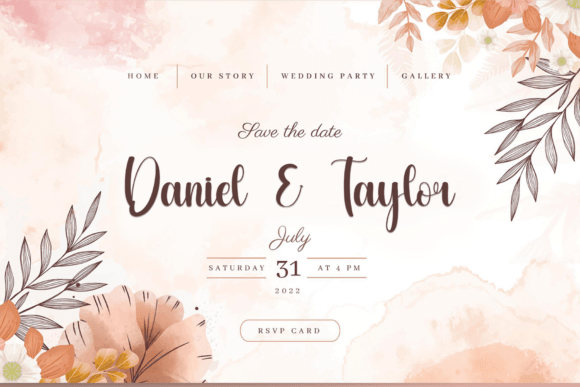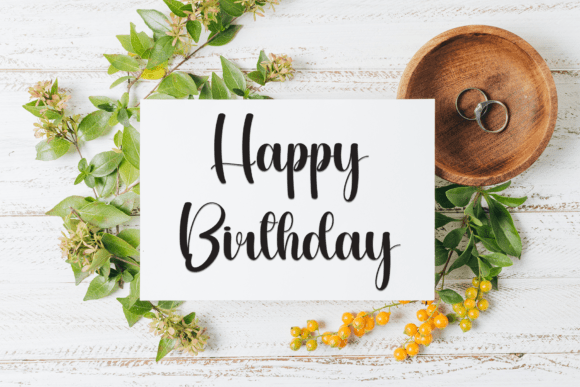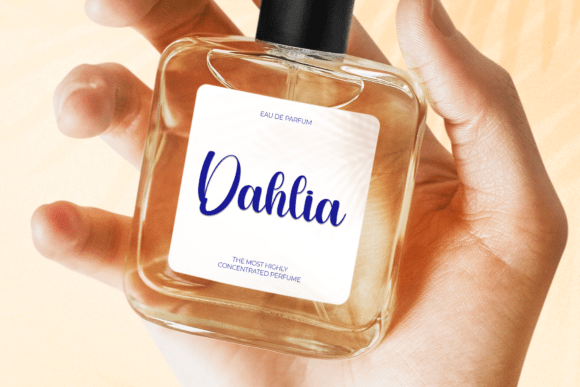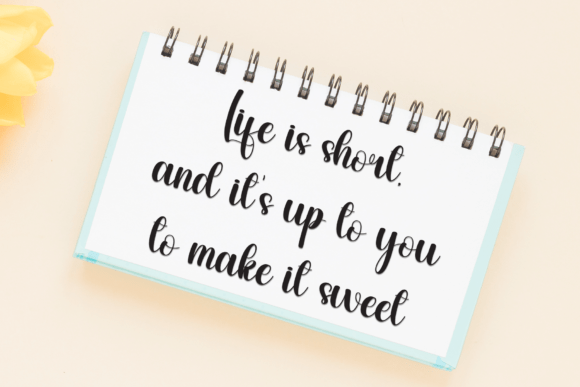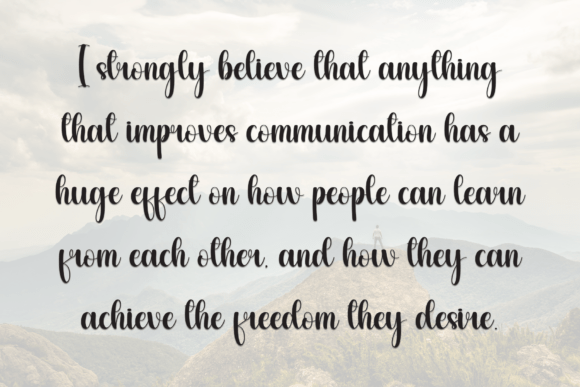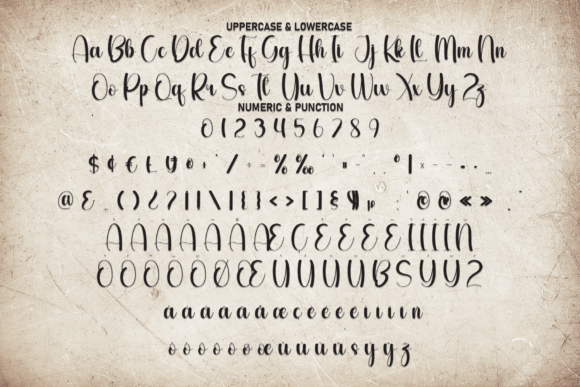
Babvintage Font: Unleash Whimsical Charm in Your Artistic Endeavors
In the world of typography, few fonts manage to capture the essence of whimsy and charm as effectively as the Babvintage Font, specifically the delightful ‘Sweet Harmony’. This hand-drawn display font is a game-changer for designers and crafters looking to infuse their projects with a friendly and welcoming aura. With its adorable liveliness, ‘Sweet Harmony’ is perfect for a variety of artistic endeavors, from wedding invitations and greeting cards to any project that calls for a dash of gladness.
The Allure of ‘Sweet Harmony’
‘Sweet Harmony’ stands out in the realm of typography due to its unique blend of playfulness and elegance. This font is meticulously designed to bring a delightful and fun twist to all your artistic projects. Whether you’re a professional designer or a crafting enthusiast, ‘Sweet Harmony’ offers the perfect tool to channel a lighthearted spirit into every stroke of your creative process.
Wedding invitations and greeting cards are special projects that require a font which can convey warmth, joy, and a personal touch. ‘Sweet Harmony’ excels in these areas, providing a whimsical charm that can make any invitation or card stand out. Its friendly and welcoming aura ensures that your message is delivered with a smile, making it perfect for:
- Wedding invitations that need a touch of elegance and playfulness
- Greeting cards for birthdays, anniversaries, and other celebrations
- Personalized gifts and crafts that require a unique touch
Infusing Your Creative Space with ‘Sweet Harmony’
Incorporating ‘Sweet Harmony’ into your creative space is easy and beneficial. This font can be used across various platforms and projects, including digital designs, print materials, and handmade crafts. By choosing ‘Sweet Harmony’, you can:
- Enhance your designs with a unique and recognizable style
- Create a consistent visual identity across your projects
- Explore new creative possibilities with a versatile and adaptable font
Why Designers and Crafters Love ‘Sweet Harmony’
Designers and crafters alike are drawn to ‘Sweet Harmony’ for several reasons:
- Unique Style: ‘Sweet Harmony’ offers a distinctive look that sets it apart from more traditional fonts.
- Versatility: This font can be used for a wide range of projects, from digital designs to handmade crafts.
- Emotional Connection: The whimsical charm of ‘Sweet Harmony’ helps create an emotional connection with the audience, making your projects more impactful.
‘Sweet Harmony’, a part of the Babvintage Font collection, is more than just a font – it’s a creative tool that can transform your artistic endeavors. With its whimsical charm, friendly aura, and versatility, ‘Sweet Harmony’ is perfect for designers and crafters looking to add a dash of gladness to their projects. Whether you’re working on wedding invitations, greeting cards, or any other artistic project, ‘Sweet Harmony’ is sure to bring a delightful and fun twist to your creations.